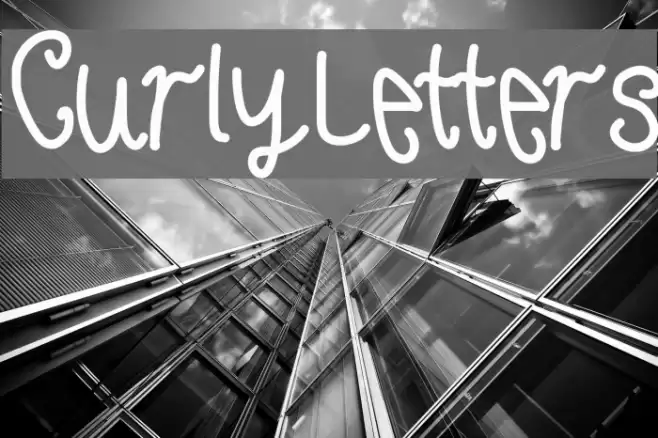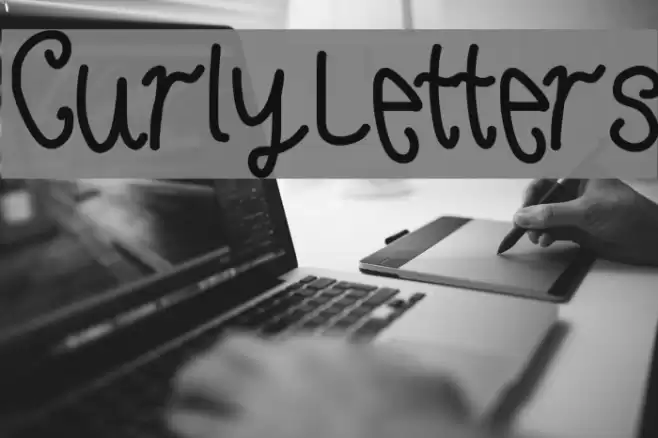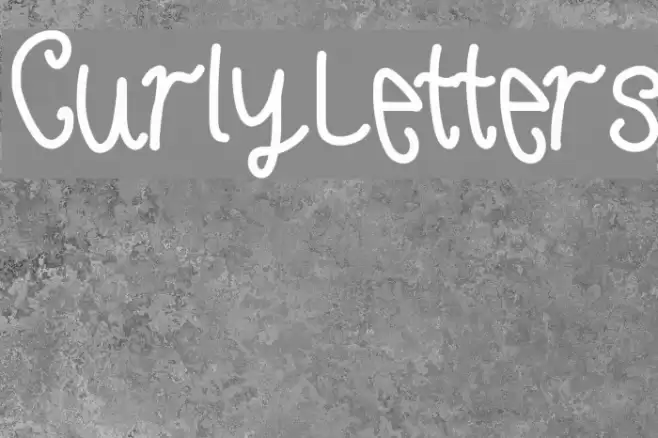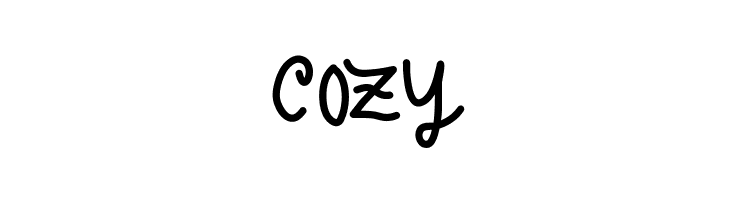
CurlyLetters Font
CurlyLetters Description
This playful and whimsical font features a curly, hand-drawn style that exudes a sense of fun and creativity. The letters are characterized by their rounded, looping strokes, giving them a lively and informal appearance. The uppercase and lowercase letters maintain a consistent style, with each character exhibiting unique, curly embellishments. The numbers and special characters follow the same playful design, making the font suitable for a variety of creative applications. Its distinctive style makes it ideal for projects that require a touch of personality and charm.
A playful, curly, hand-drawn font with a whimsical style from Uncategorized fonts.
- Proposed Projects: Ideal for children's books, greeting cards, playful branding, and creative posters.